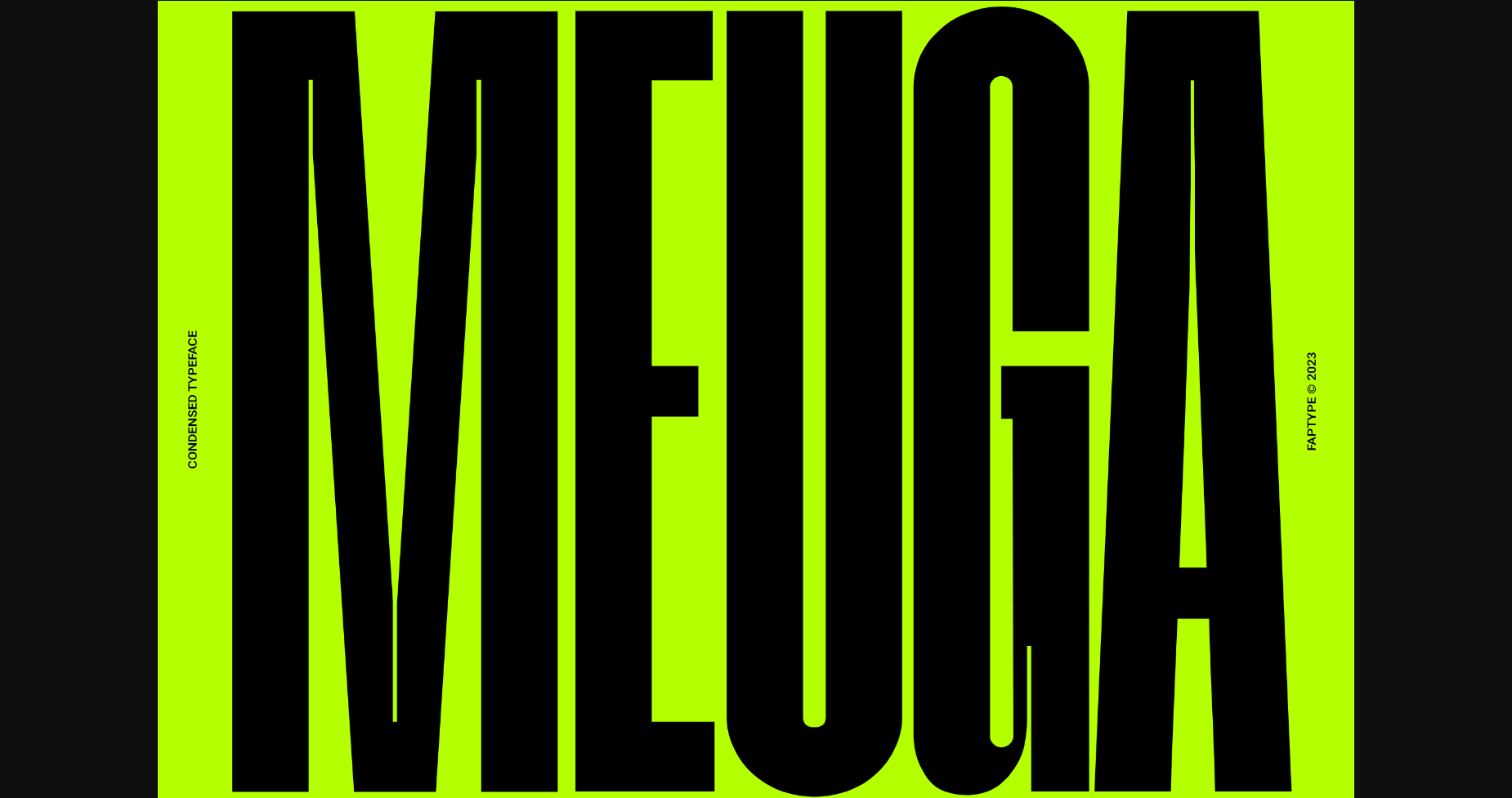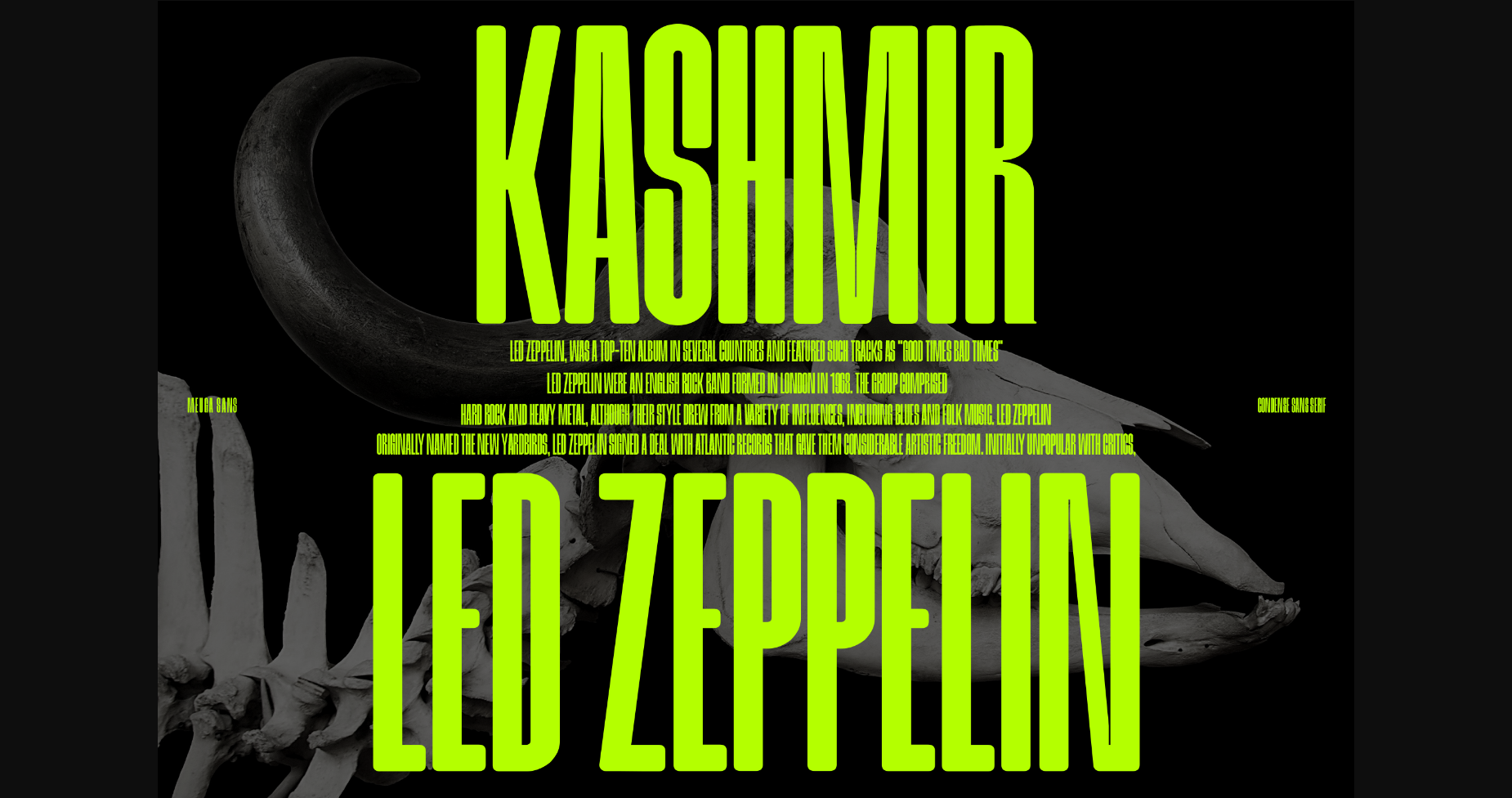
About Meuga Font
Introducing a sleek and modern condensed sans-serif font – Meuga. It offers a minimalist design with its narrow width and clean lines, perfect for any branding or design project.
This typeface is perfect for anyone looking for a clean and modern look, with its narrow width and elegant lines. Add a contemporary touch to your designs with this font, and add it to your headlines and titles.